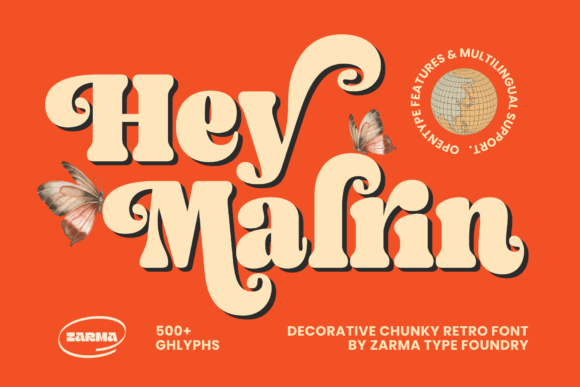
Looking for a font that exudes a retro vibe while still remaining modern and versatile? Look no further than Malrin Font, the latest addition to our serif font family. Created by the talented Azzam Ridhamalik, Malrin Font is perfect for users looking to add some serious personality to their projects.
Inspired by the classic "fatface typeface," Malrin Font is chunky, funky, and psychedelic all at the same time. It's a great choice for designers looking to create eye-catching logos, displays, headers, headlines, posters, or big typography. With its unique and bold aesthetic, Malrin Font is sure to make a statement.
But that's not all - Malrin Font is also PUA encoded, meaning you can access all of the glyphs and swashes with ease. This feature makes it incredibly easy to add intricate details and flourishes to your designs, allowing you to truly make your work stand out from the crowd.